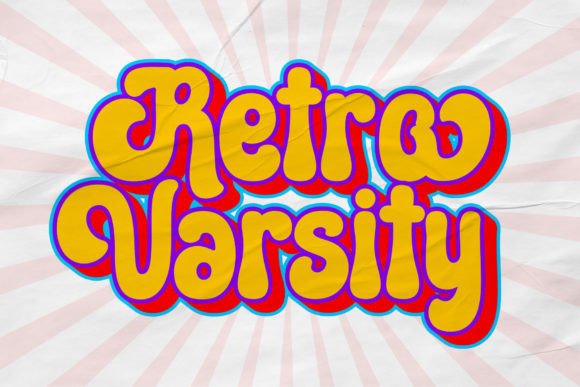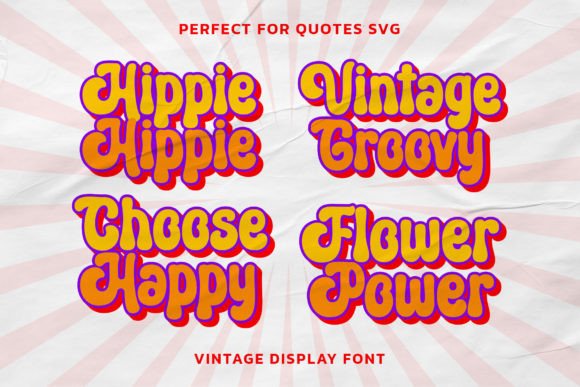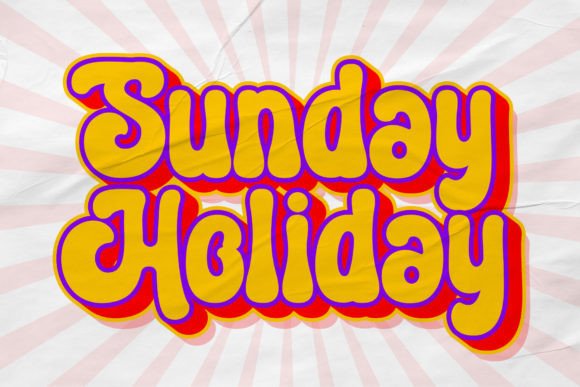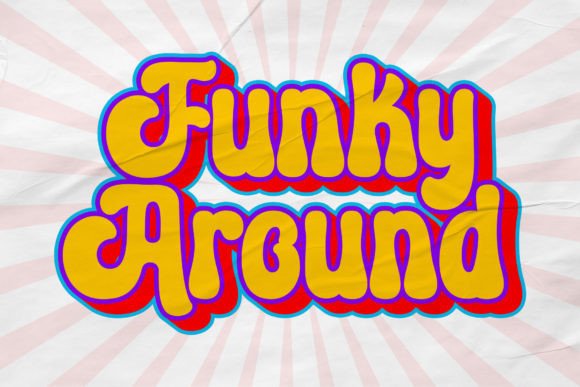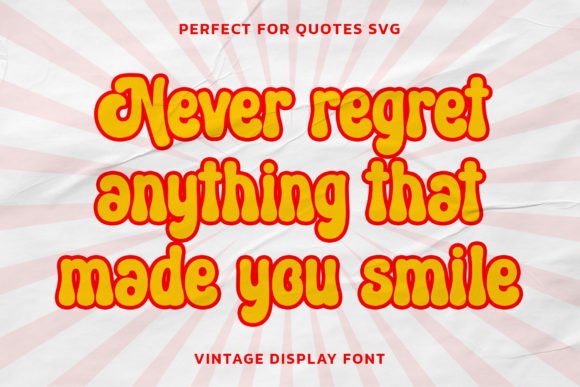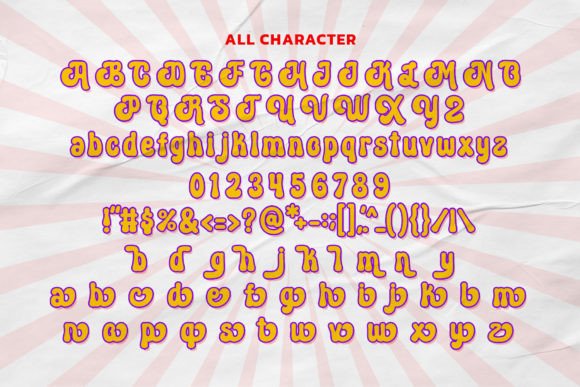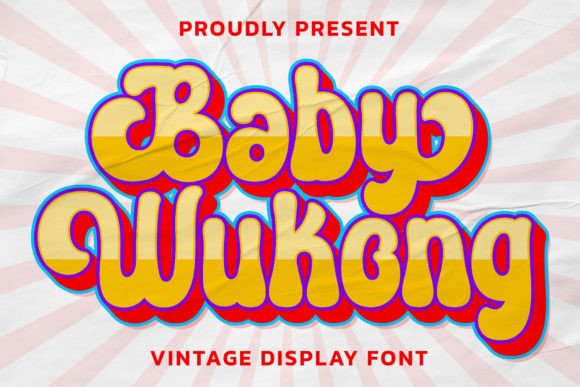
Baby Wukong Font: The Ultimate Retro Display Font for Designers and Crafters
Are you looking for a font that can add a special retro touch to your design projects? Look no further than the Baby Wukong Font! This cool, vintage-style display font is perfect for designers and crafters who want to give their work a unique and nostalgic feel. In this article, we’ll take a closer look at the Baby Wukong Font, its features, and how you can use it to elevate your design ideas.
What is Baby Wukong Font?
Baby Wukong Font is a display font that boasts a retro aesthetic, reminiscent of classic designs from the past. Its vintage-style charm makes it perfect for a wide range of design projects, from logos and branding to invitations, stationery, wedding designs, social media posts, and more. The font’s unique character and nostalgic feel are sure to capture the attention of your audience and leave a lasting impression.
Key Features of Baby Wukong Font
So, what makes Baby Wukong Font so special? Here are some of its key features:
- Retro aesthetic: Baby Wukong Font has a distinct vintage-style charm that will transport your designs back in time.
- PUA encoded: This font is PUA (Private Use Area) encoded, which means you can access all glyphs and swashes easily. This feature makes it simple to use and customize the font to suit your design needs.
- Versatile: Baby Wukong Font can be used for a wide range of design projects, from logos and branding to invitations, stationery, wedding designs, social media posts, and more.
How to Use Baby Wukong Font in Your Designs
Now that we’ve covered the features of Baby Wukong Font, let’s talk about how you can use it in your designs. Here are some ideas to get you started:
- Logos and branding: Use Baby Wukong Font to create a unique and memorable logo for your business or brand.
- Invitations and stationery: Add a touch of retro charm to your invitations, greeting cards, and stationery with this beautiful font.
- Wedding designs: Baby Wukong Font is perfect for wedding designs, including wedding invitations, save-the-date cards, and more.
- Social media posts: Use this font to create eye-catching social media posts that will stand out from the crowd.
- Crafting projects: Baby Wukong Font is also great for crafters who want to add a personal touch to their projects, such as scrapbooking, journaling, and more.
Tips for Getting the Most Out of Baby Wukong Font
Here are some tips for getting the most out of Baby Wukong Font:
- Experiment with different sizes and colors: Don’t be afraid to try out different sizes and colors with Baby Wukong Font. This will help you find the perfect combination for your design.
- Pair it with other fonts: Baby Wukong Font pairs well with other fonts, so feel free to experiment with different font combinations to create a unique look.
- Use it consistently: To create a cohesive look, use Baby Wukong Font consistently throughout your design project.
In conclusion, Baby Wukong Font is a versatile and stylish display font that’s perfect for designers and crafters who want to add a retro touch to their work. With its PUA encoding, vintage-style charm, and ease of use, this font is sure to become a favorite in your design arsenal. So why wait? Download Baby Wukong Font today and start creating stunning designs that will leave a lasting impression!
Whether you’re a seasoned designer or a crafter looking for a unique font to add to your projects, Baby Wukong Font is an excellent choice. Its flexibility, style, and nostalgic feel make it perfect for a wide range of design projects. So go ahead, get creative, and see what amazing designs you can create with Baby Wukong Font!